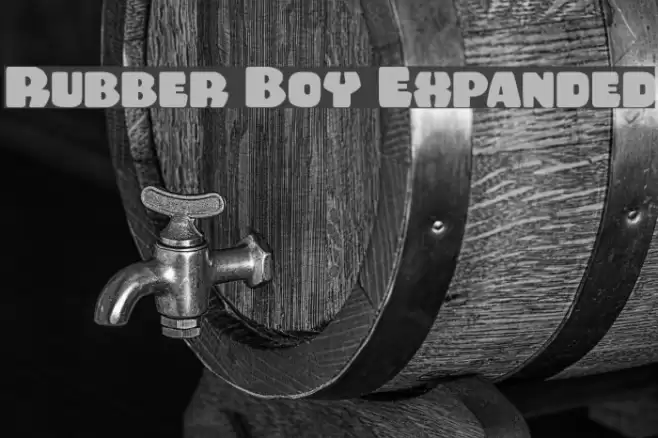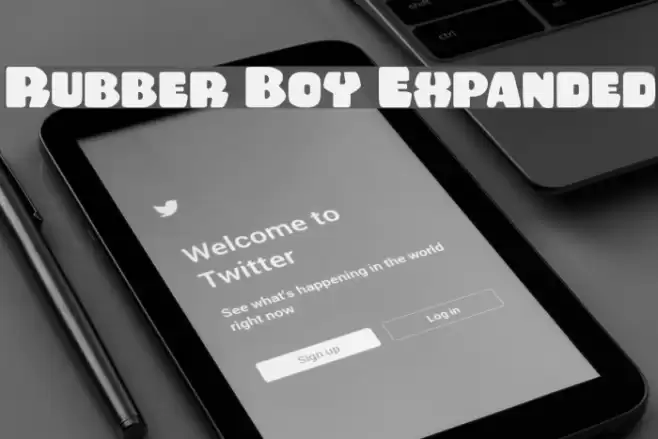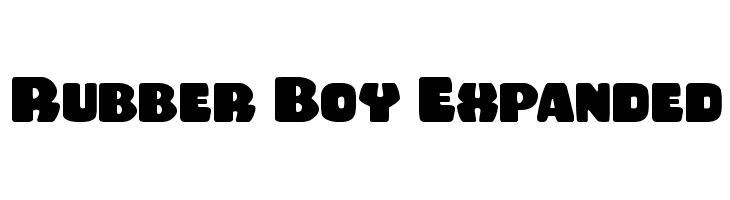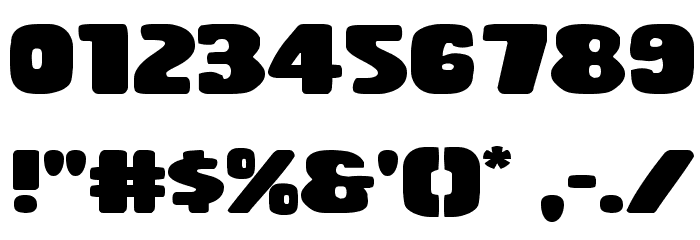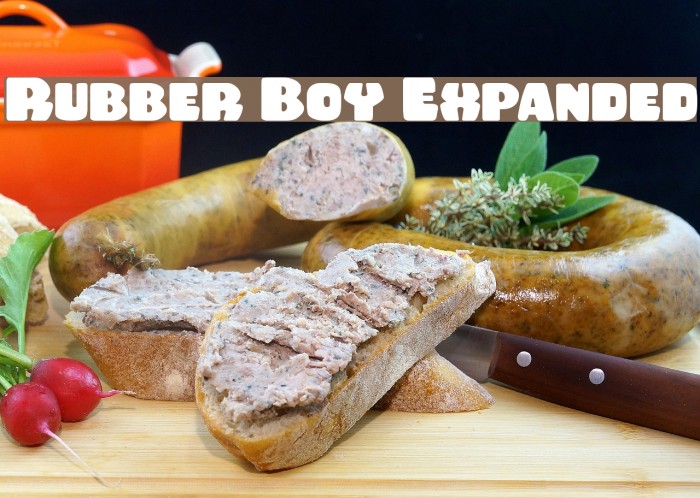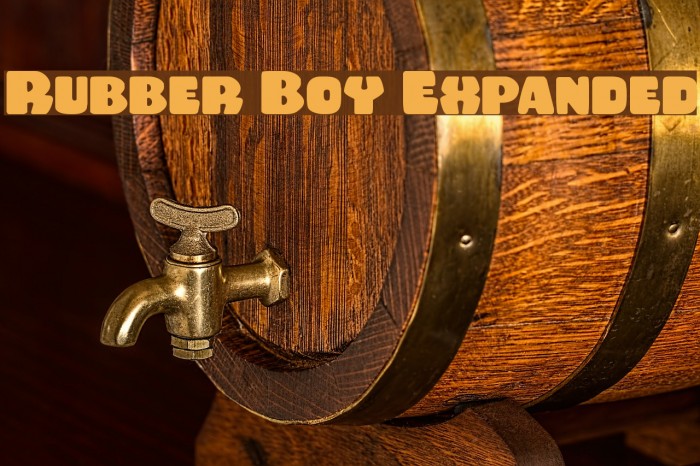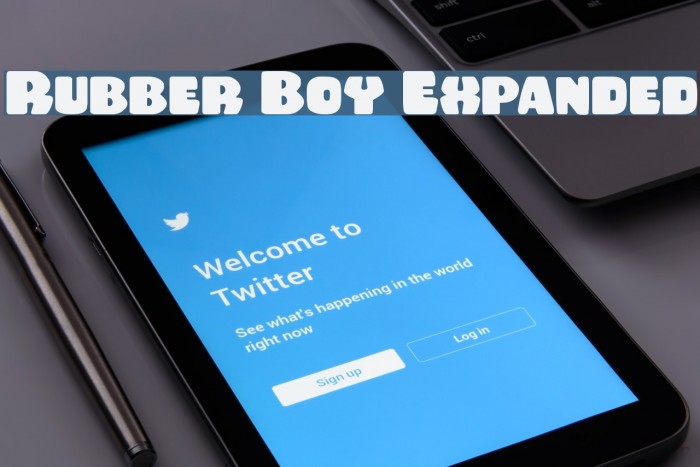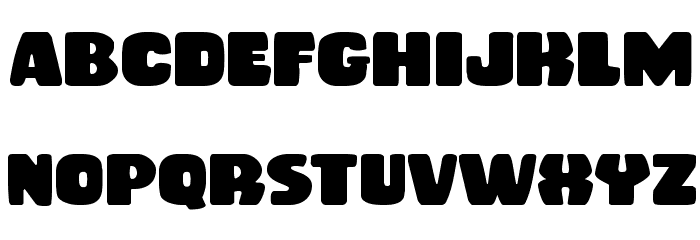
Rubber Boy Expanded Font
Rubber Boy Expanded Description
This font features a bold and playful design with thick, rounded characters that convey a sense of fun and approachability. The letters are uniformly wide, giving them a strong presence and making them highly legible even from a distance. The style is reminiscent of retro or vintage aesthetics, with a touch of modern flair due to its smooth curves and clean lines. The characters are tightly spaced, enhancing the compact and cohesive look of the text. This font includes a full set of uppercase and lowercase letters, numbers, and a variety of special characters, making it versatile for different design needs.
A bold, playful font with rounded characters and a retro-modern style from Uncategorized fonts.
- Proposed Projects: Ideal for children's books, playful branding, posters, and retro-themed designs.
- Width: Expanded
- Character Spacing: Tight
- Overall Style: Vintage, Playful